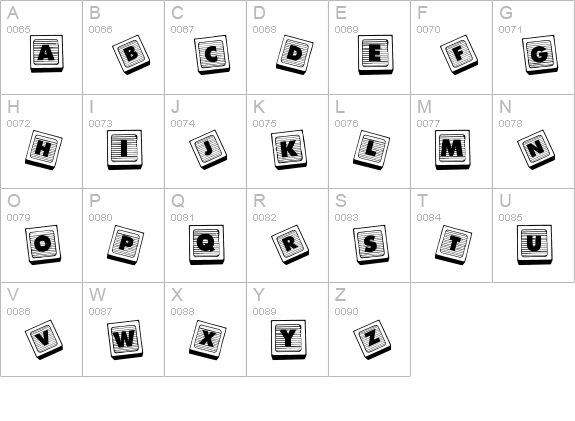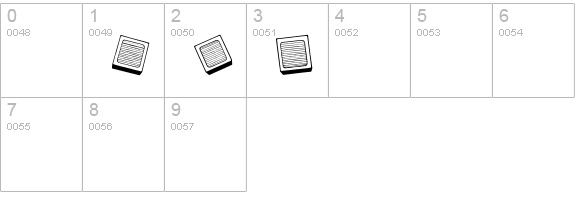
Blu's Blocks Font Details
Blu's Blocks font is a modern and stylish typeface that exudes creativity and versatility. With its clean lines and geometric shapes, this font is perfect for a wide range of design projects, from branding to editorial design. The unique block-like letterforms give your text a bold and eye-catching appearance, making it stand out in any setting. What sets Blu's Blocks font apart is that it is not only visually appealing but also free to download. You can easily access this font at FontsMarket.com and enhance your designs without any cost. Whether you are a professional designer looking for a new tool in your creative arsenal or a hobbyist exploring typography, Blu's Blocks font is a fantastic choice that won't break the bank. Download it today and add a touch of modern sophistication to your projects!